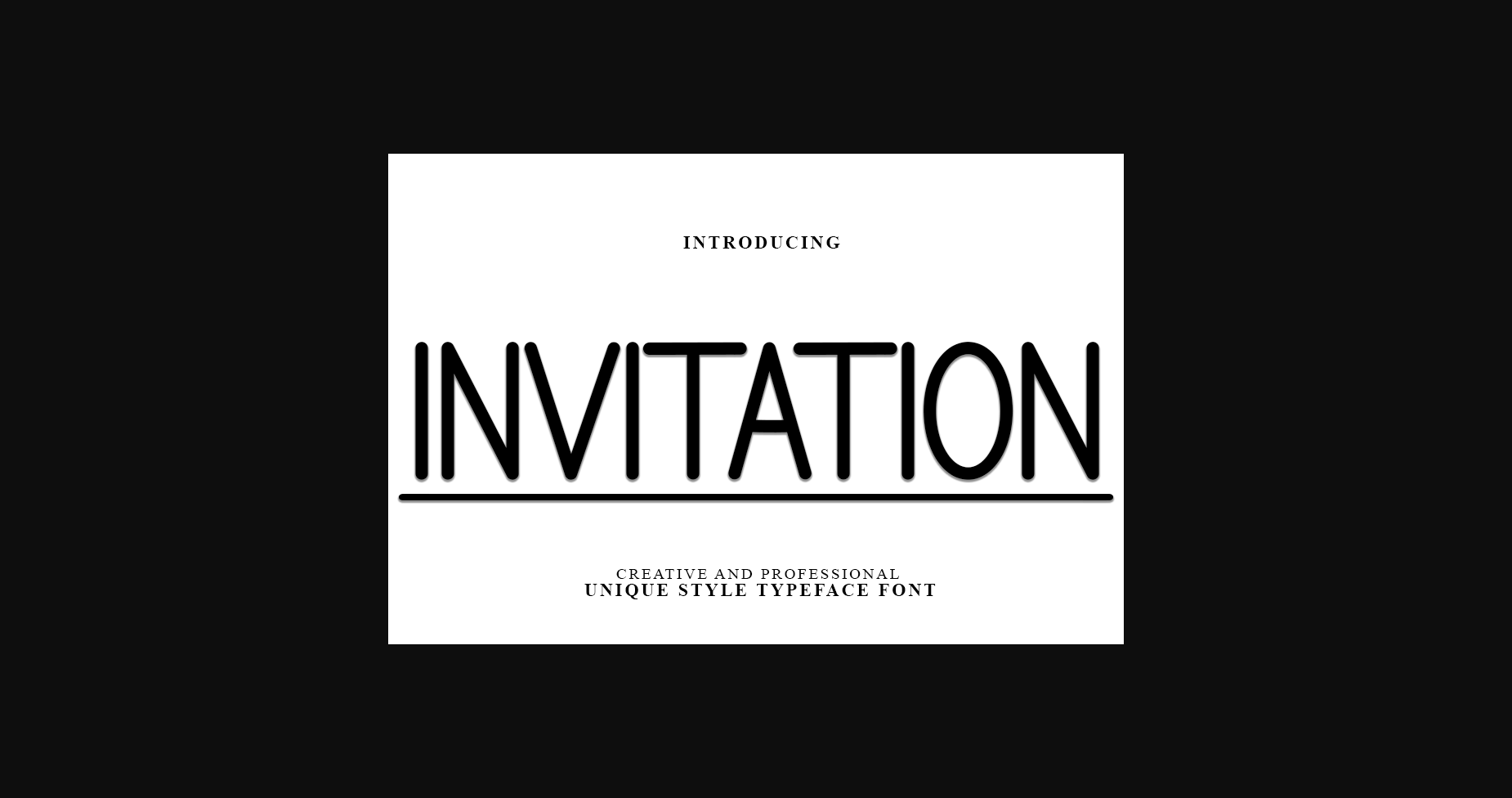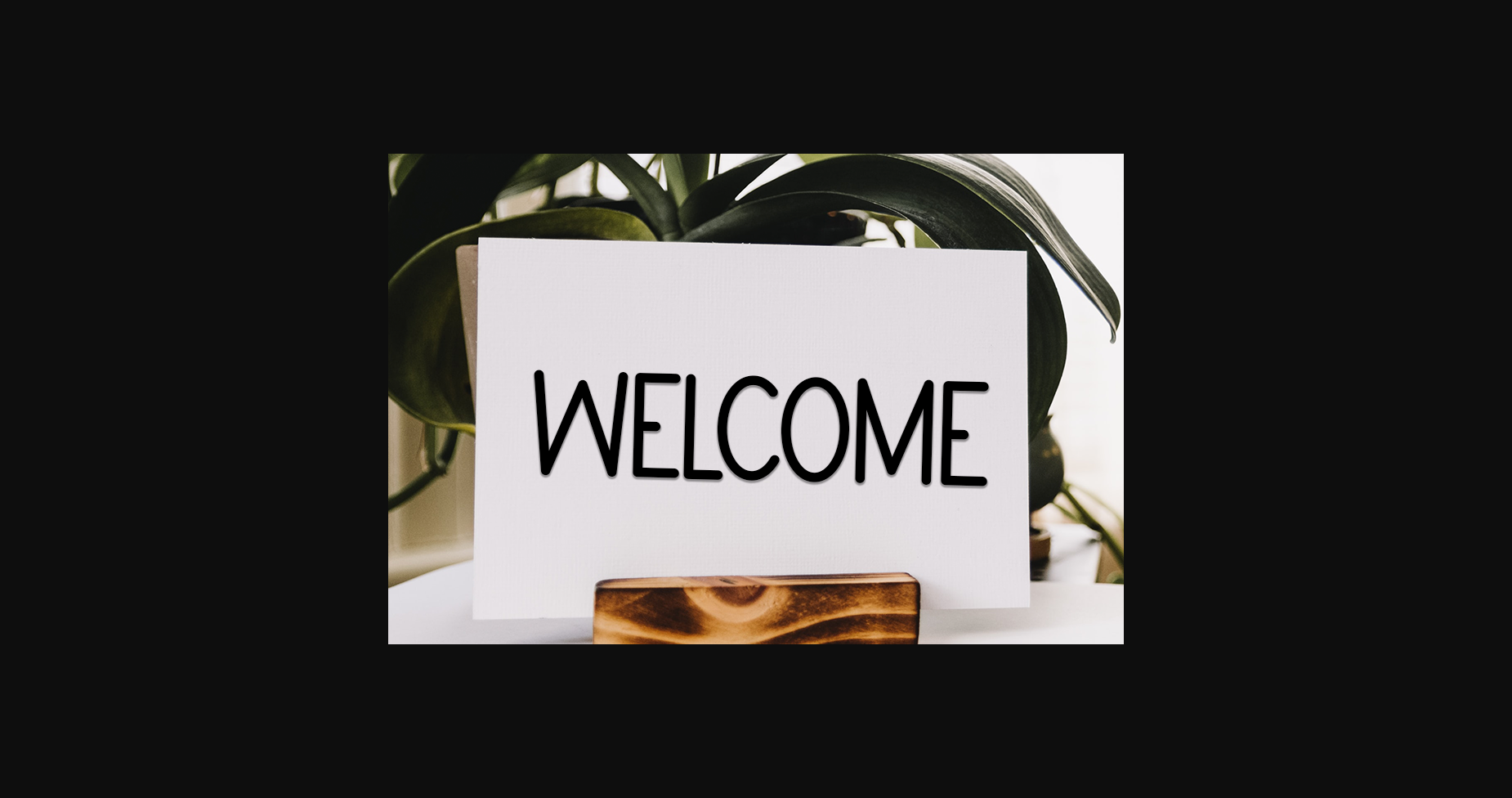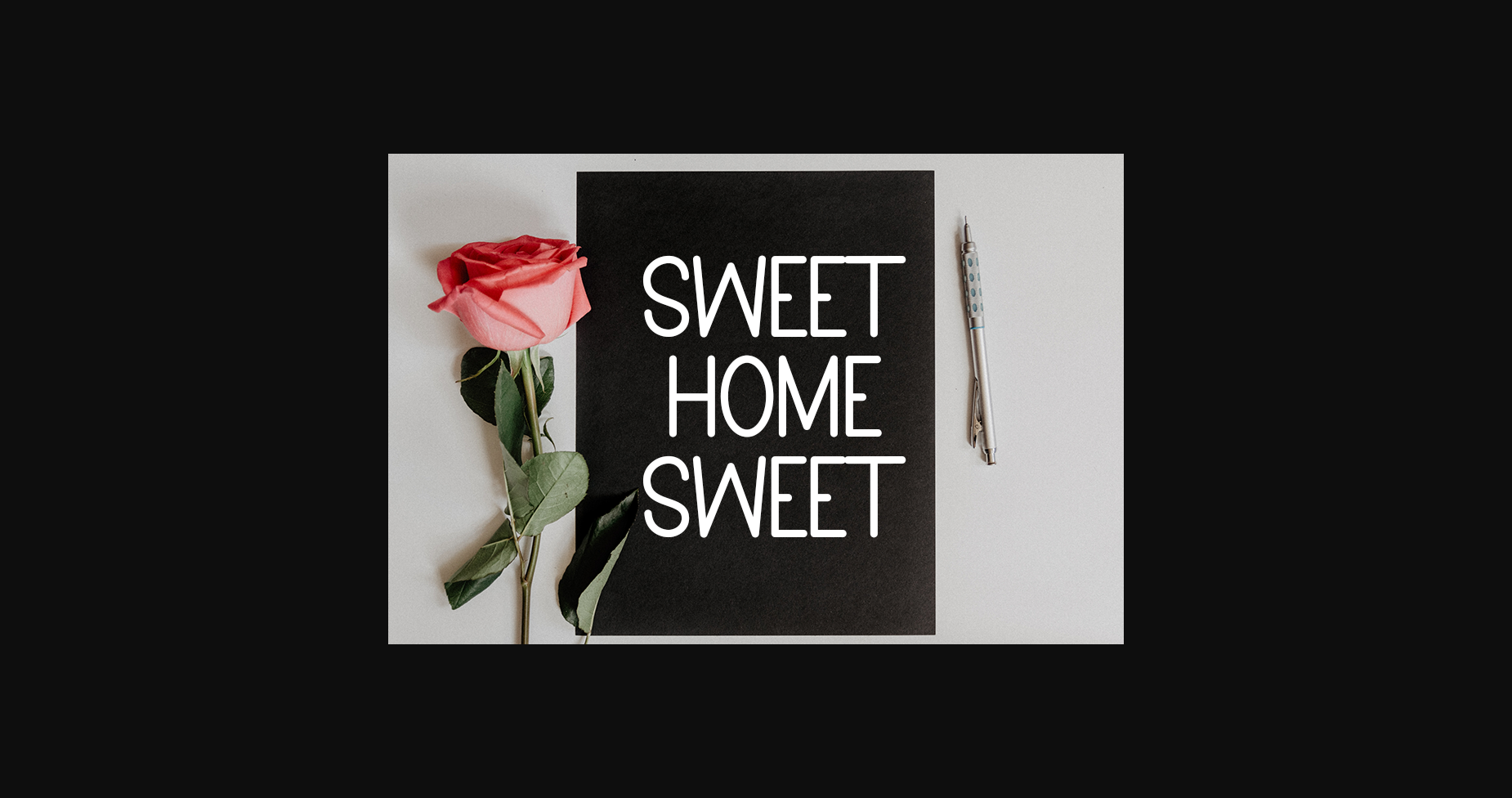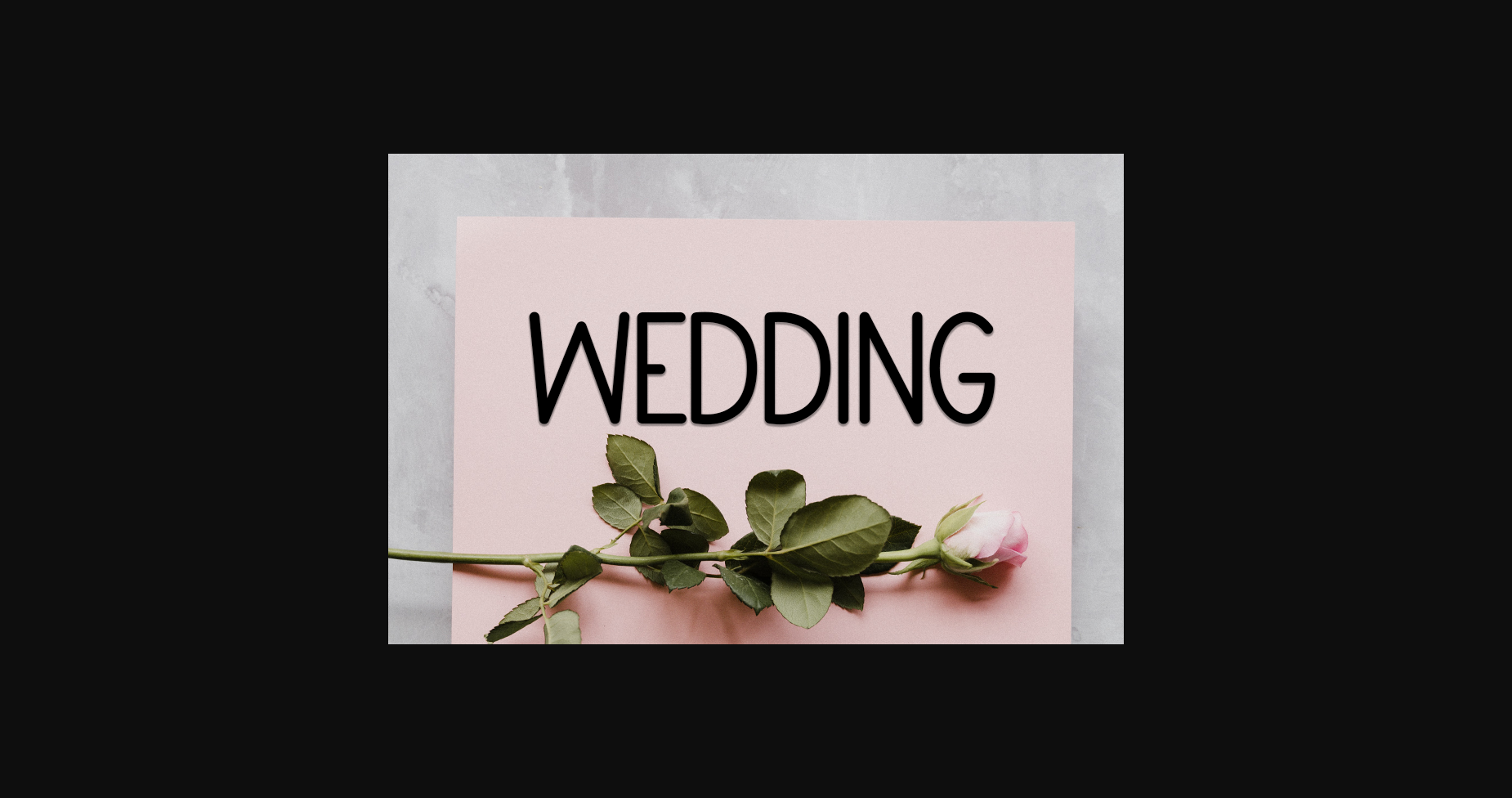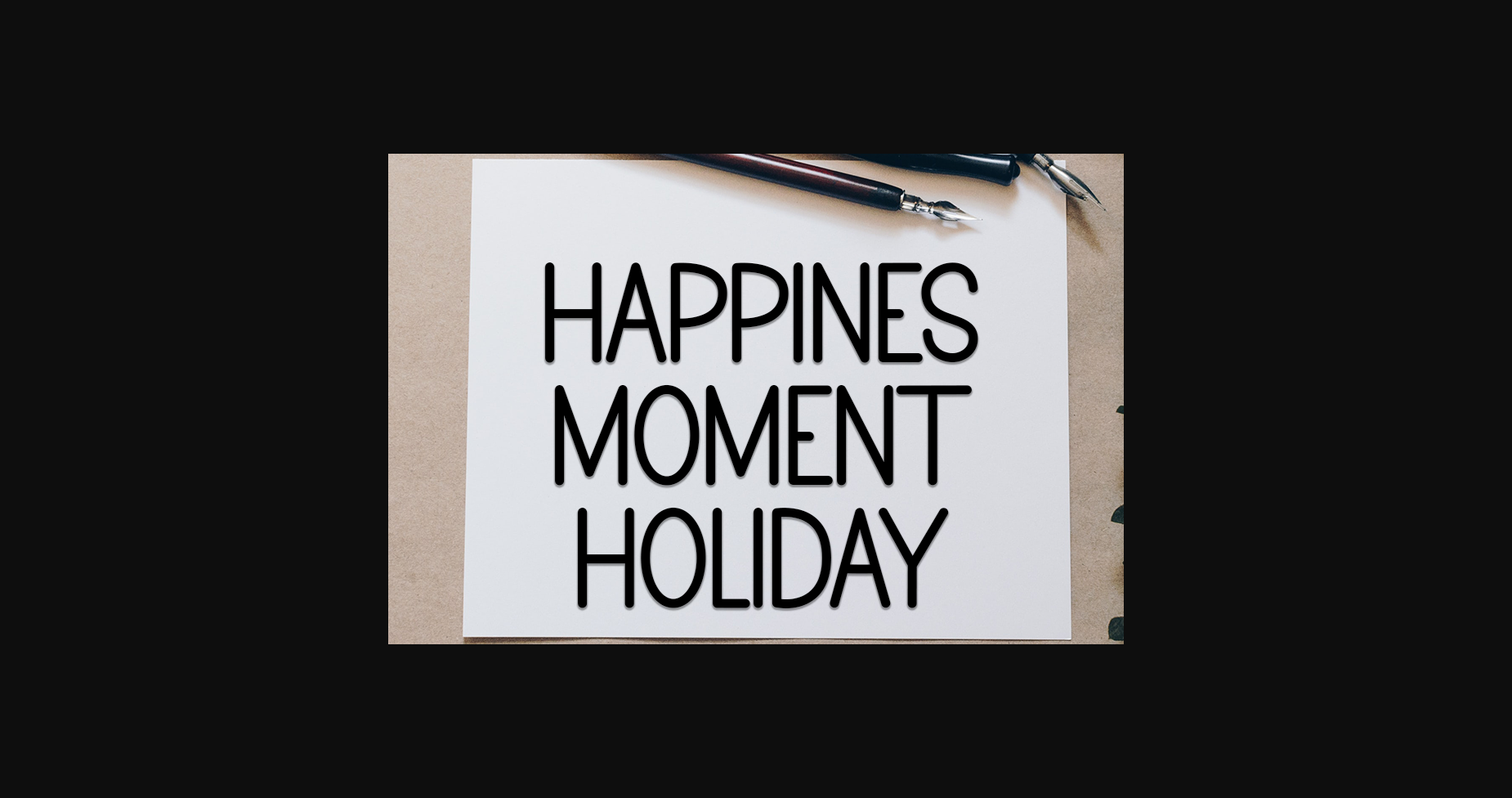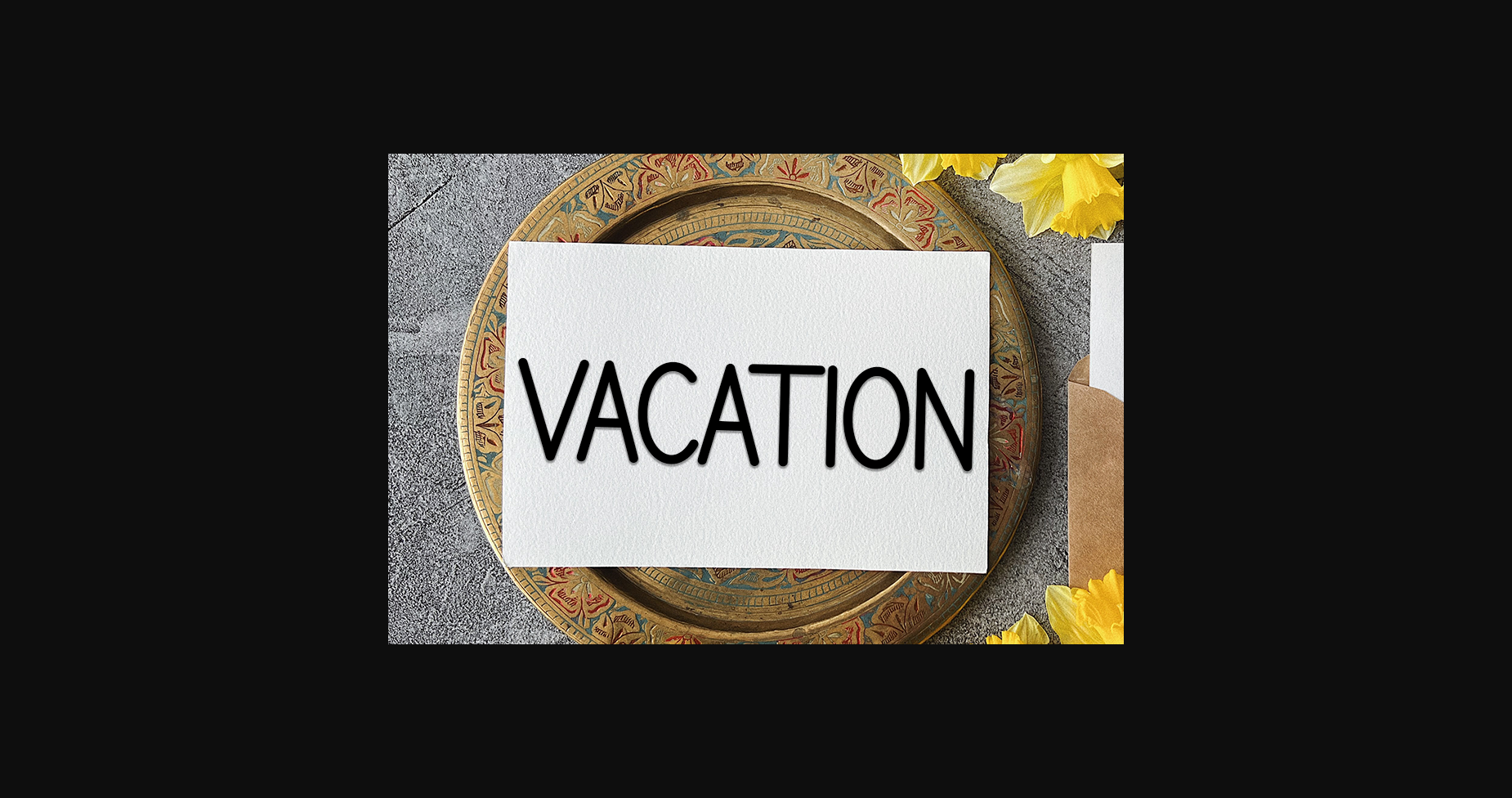
Invitation Font
About Invitation Font
Invitation is a cool and modern sans serif font. Whether you’re using it for crafts, digital design, presentations, or making greeting cards, this font has the potential to become your favorite go-to font, no matter the occasion.